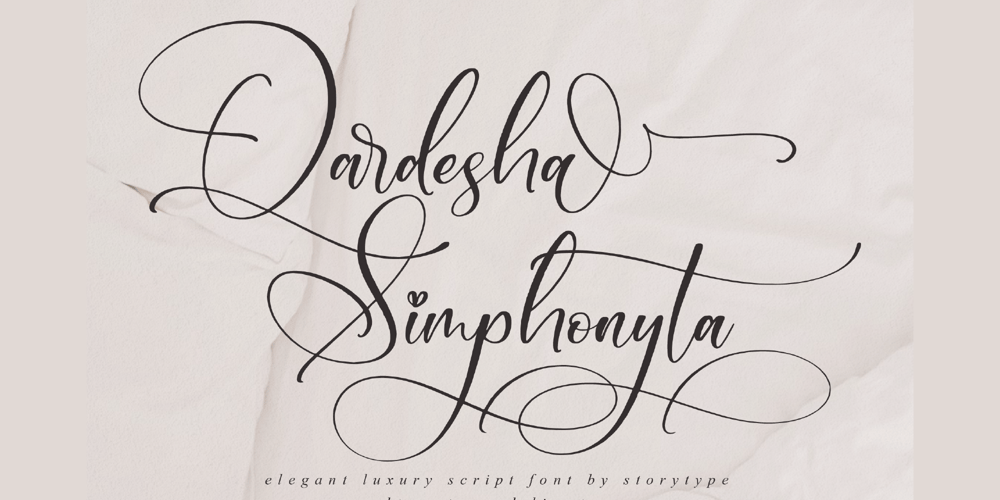
Qardesha Simphonyta Font Family was designed by Heru Utama Putra and published by Letterena Studios. Qardesha Simphonyta contains 2 styles and family package options. Proudly present Qardesha Simphonyta, an elegant luxurious script font with a unique style and modern look. This typeface is perfect for an elegant & luxury logo, book or movie title design, fashion brand, magazines, clothes, lettering, quotes, and so much more.